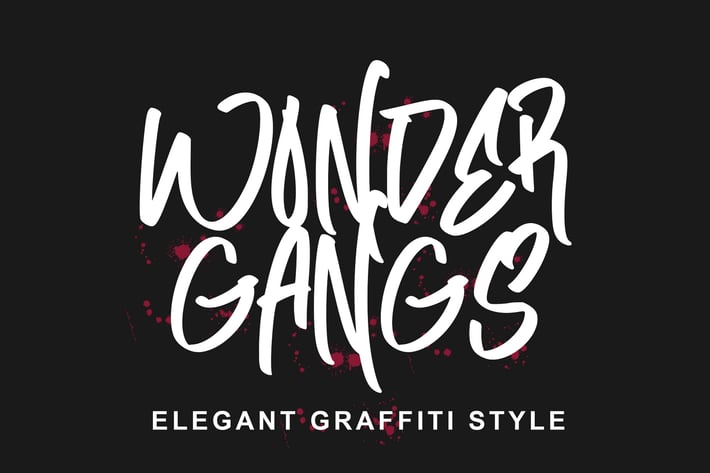
Wonder Gangs Graffiti Font
Wonder gangs is graffiti font. You can see on the preview how awesome this font is, you can use it for magazine, logo, wall art, music album, and you can made a cool cutting sticker design